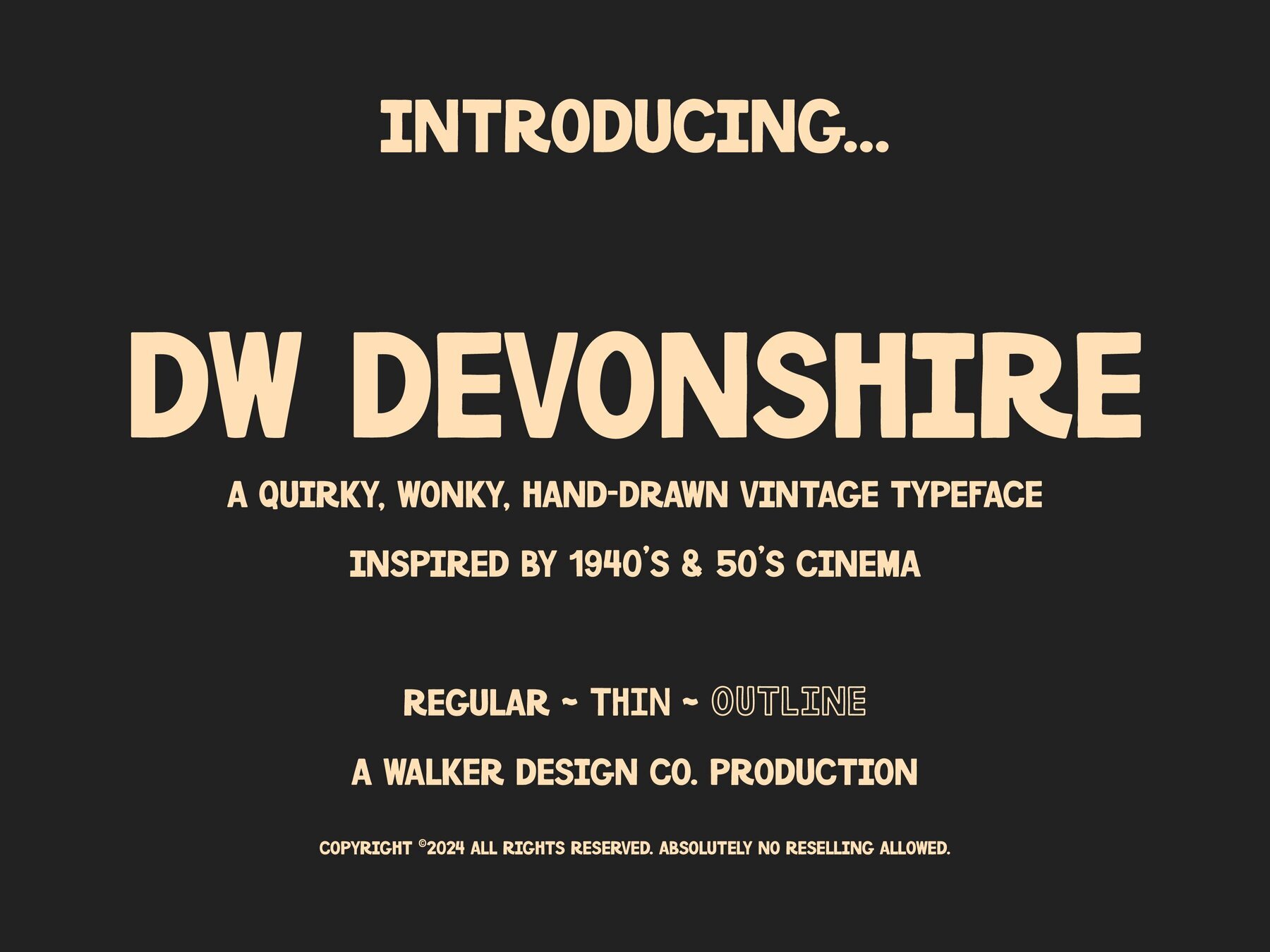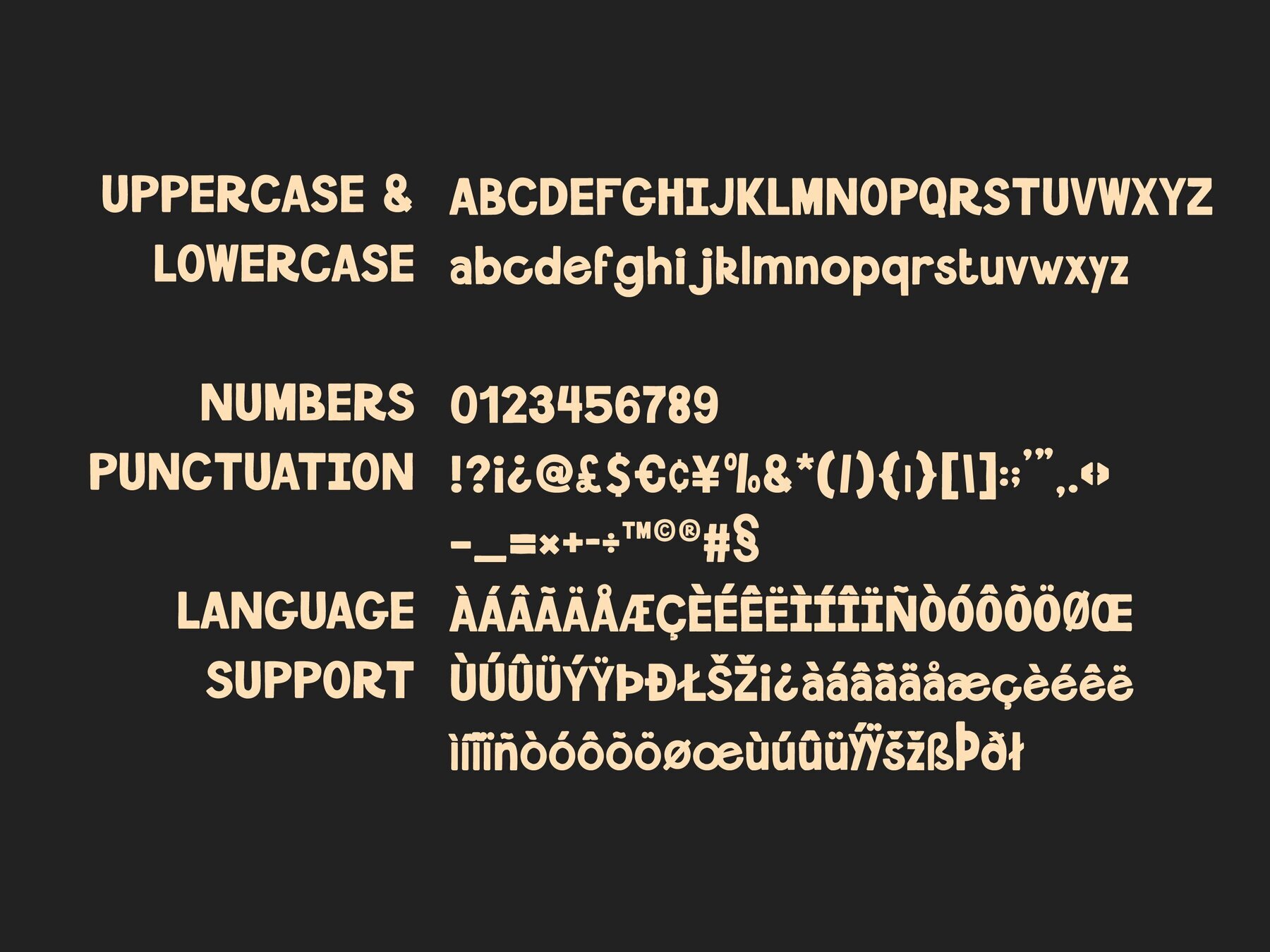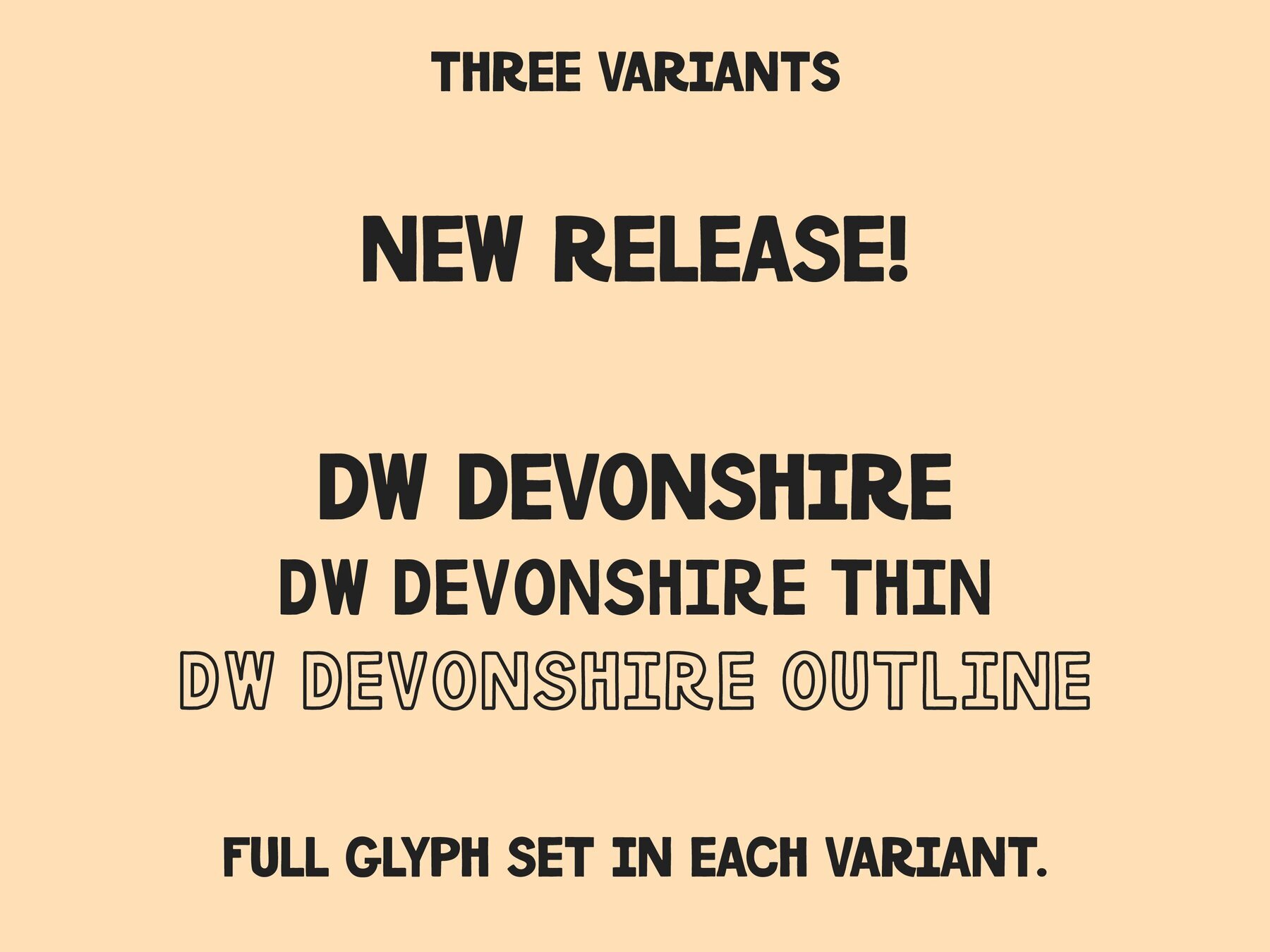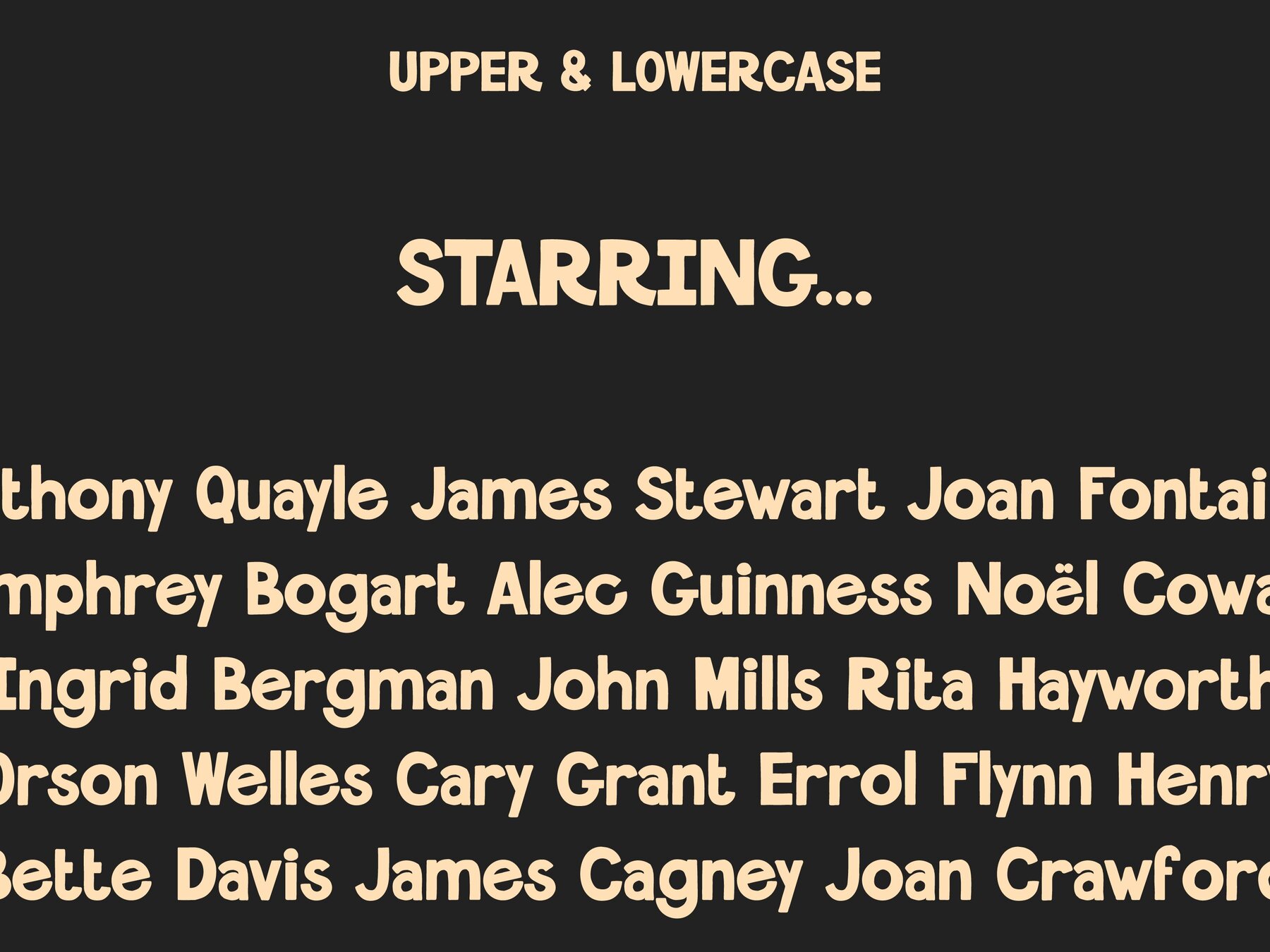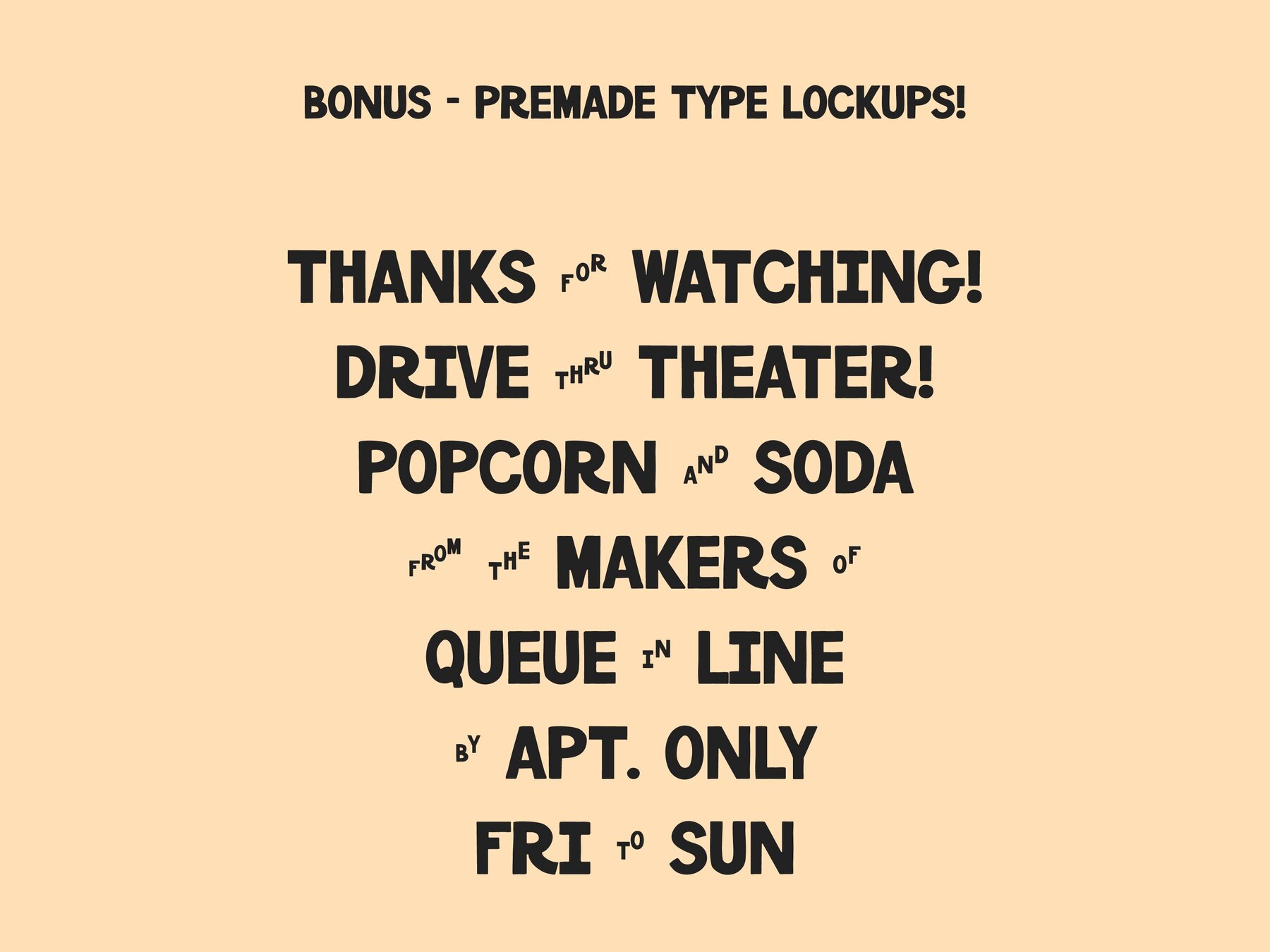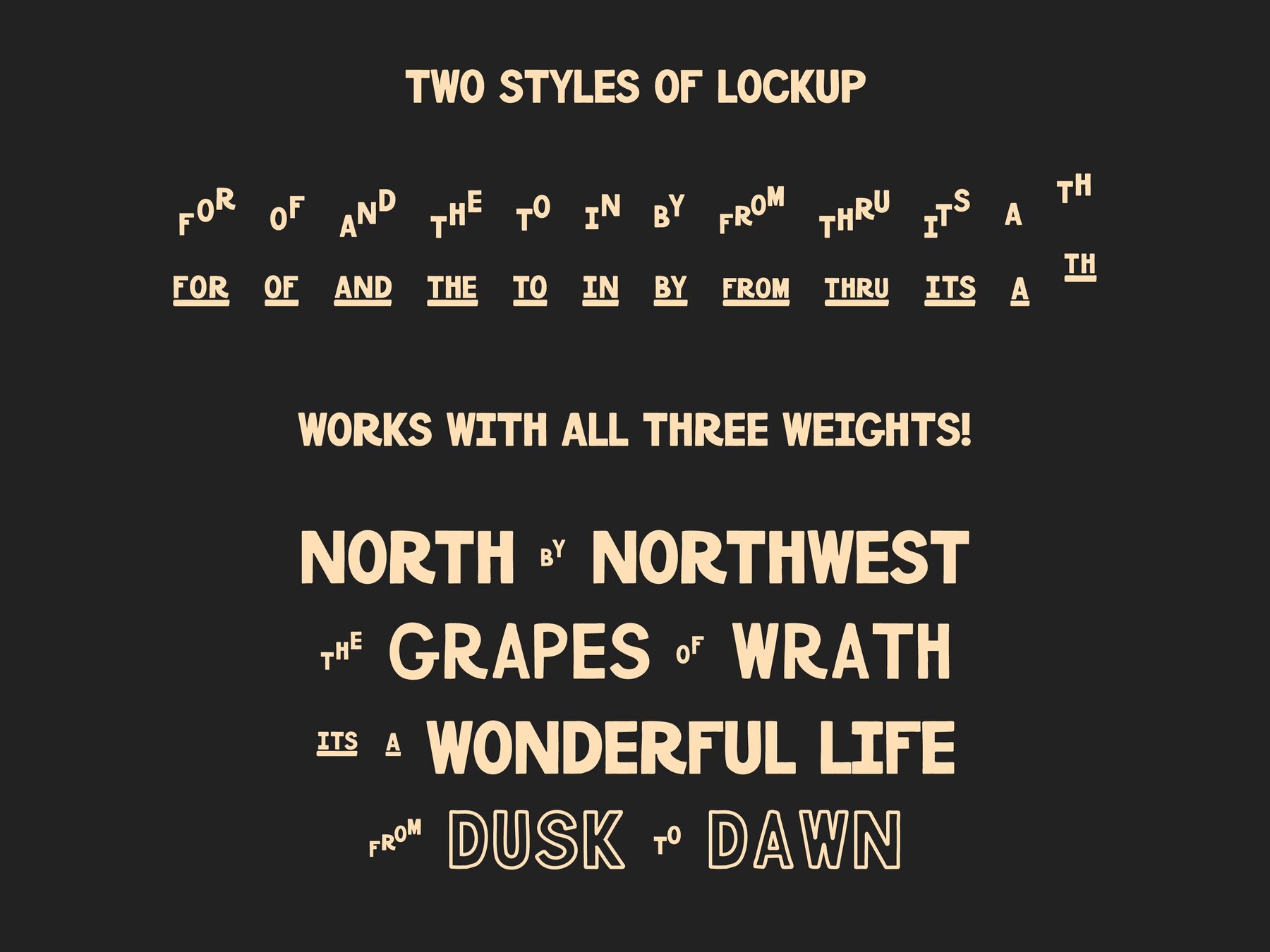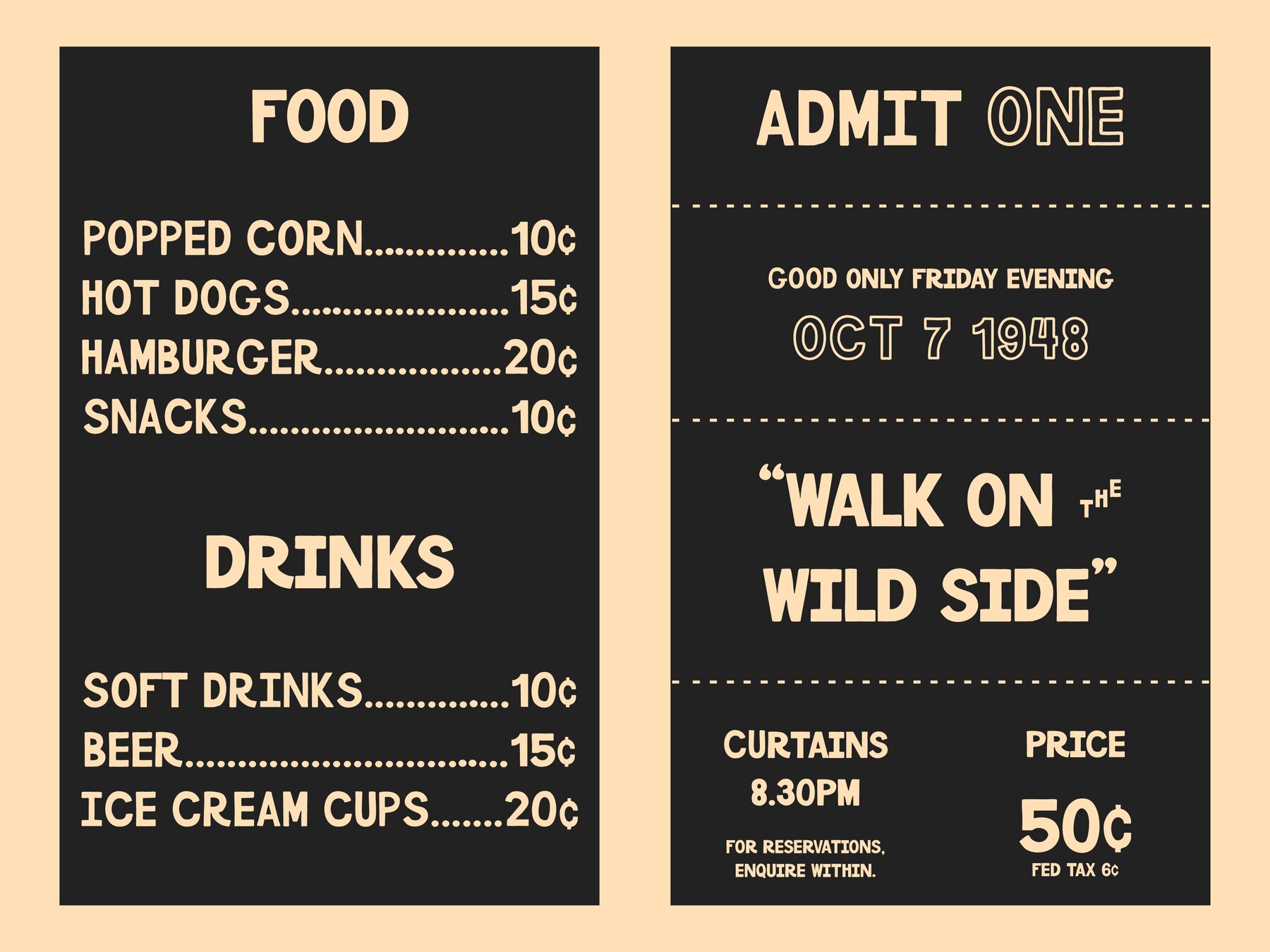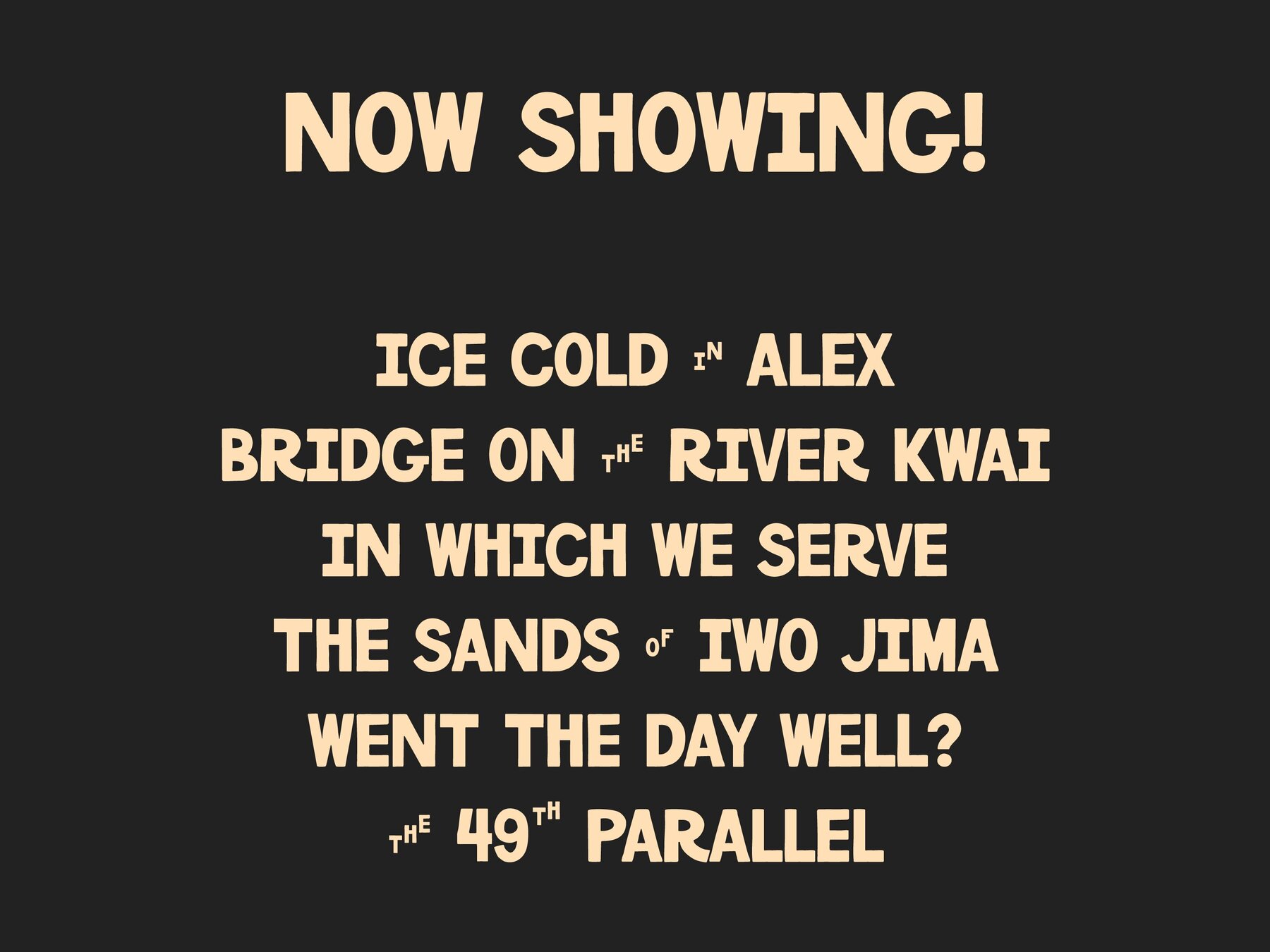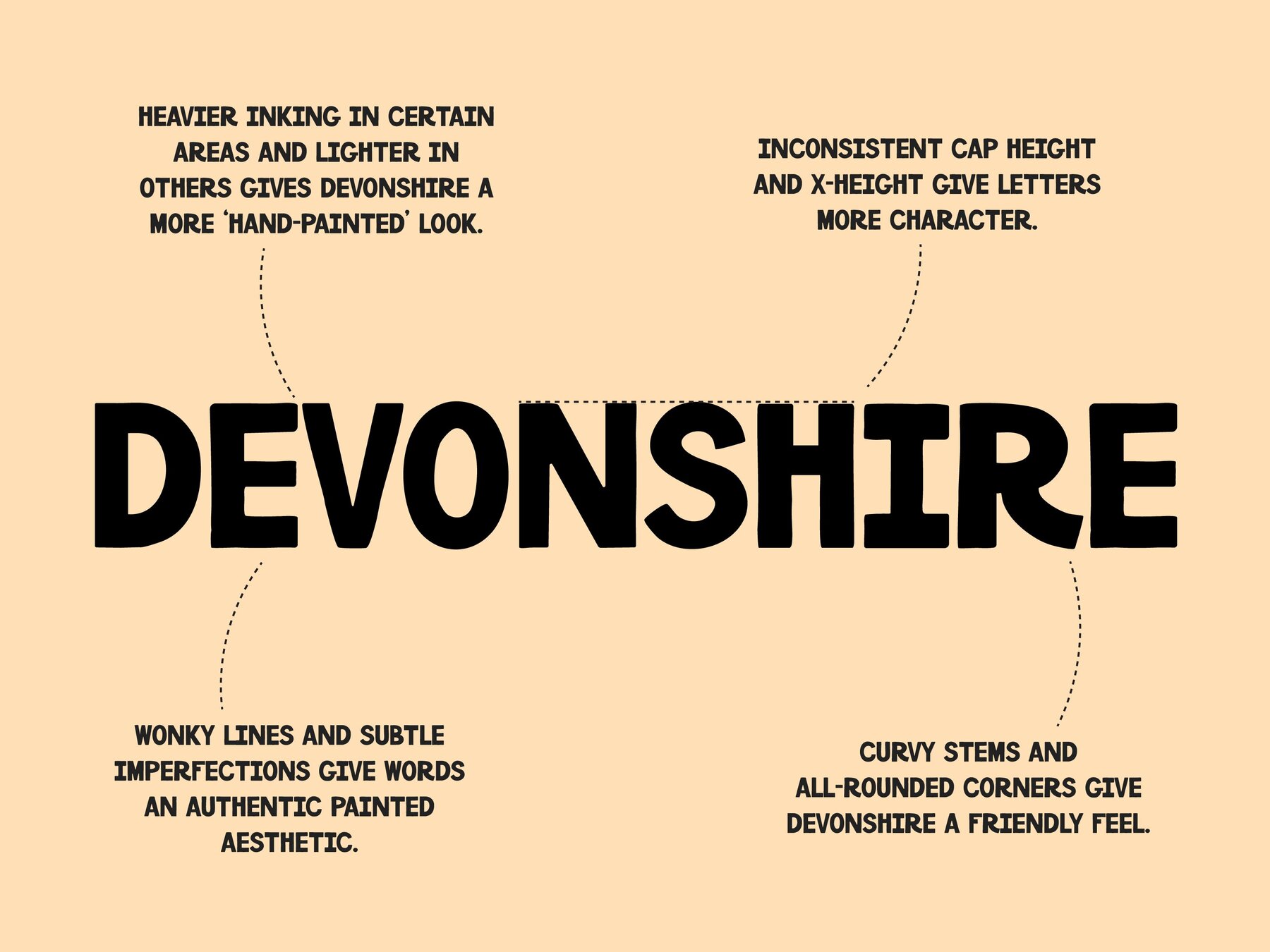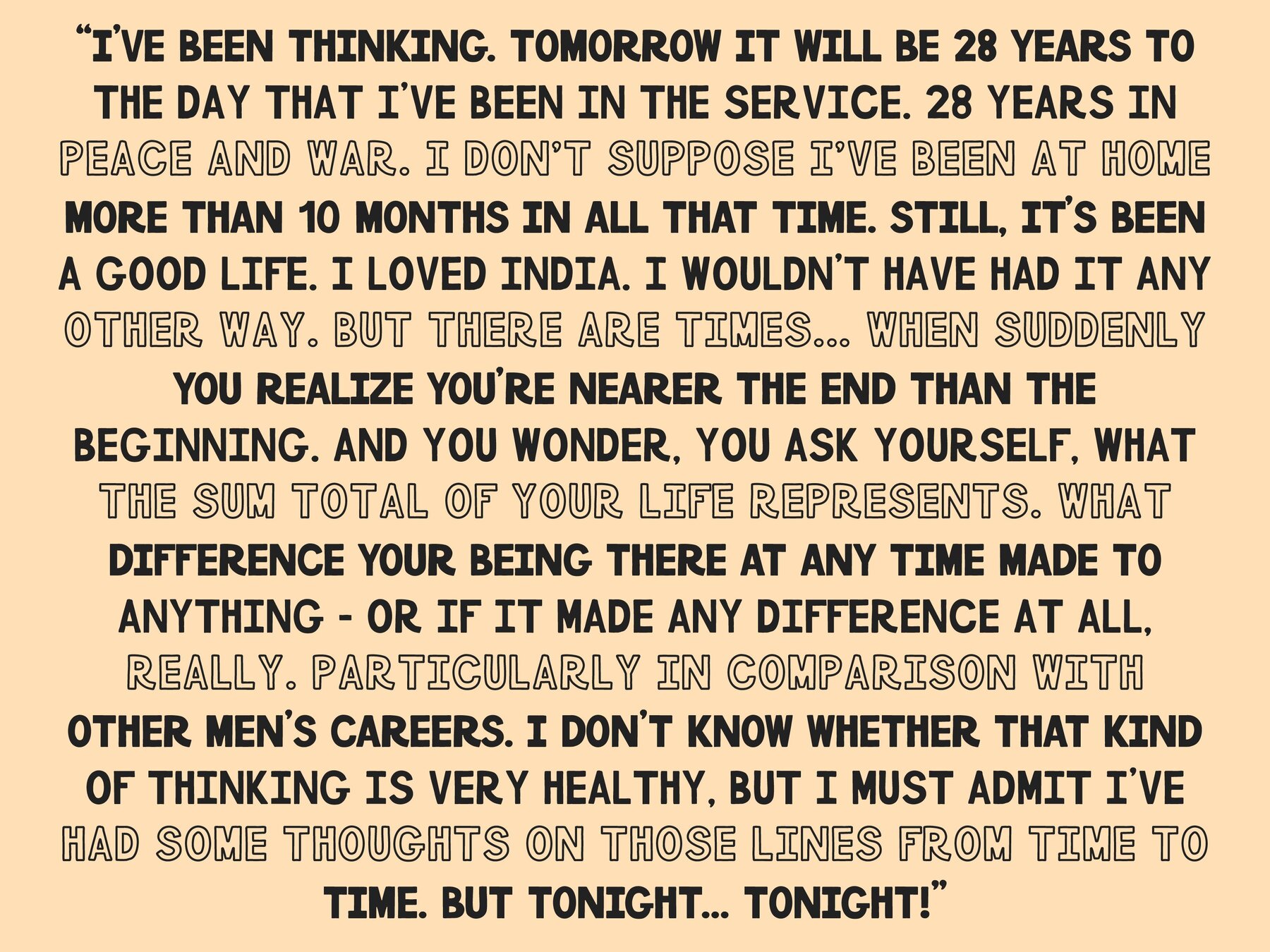
DW Devonshire Font
Introducing DW Devonshire, a hand-drawn vintage sans serif typeface inspired by 40's and 50's cinema. DW Devonshire comes in 3 versions - Regular (for a chunky, bolder type), Thin (for a sleeker look), and Outline (for something a little different). DW Devonshire has wonky edges, rounded corners, mixed widths and kerning, to evoke an aesthetic reminiscent of hand-painted cinema advertising. Perfect for a variety of graphic design uses, it works particularly well for print/poster design and brand design for quirkier brands looking for a vintage style. DW Devonshire supports foreign characters across all three versions, as well as pre-made type lockups in two different styles, perfect for quickly creating that timeless, cinema aesthetic.